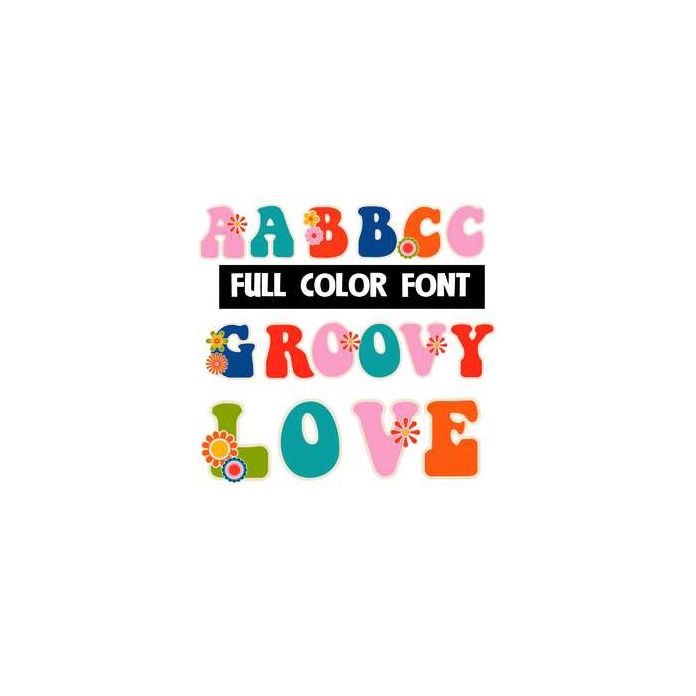
This full color font features hippie-style lettering with retro flowers on the uppercase. This font works best for titles, displays, posters and more. Please note color fonts will show as black in non compatible programs. This font type is compatible with Silhouette Studio.